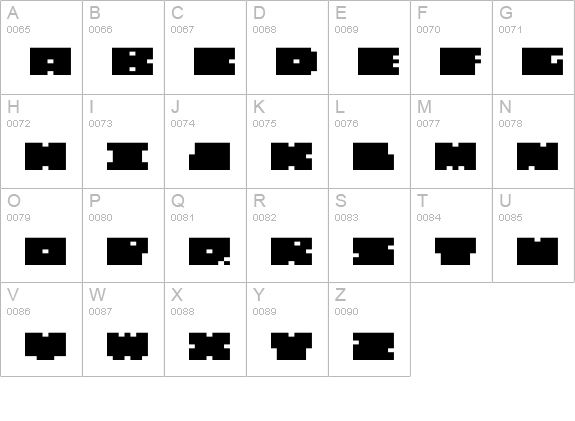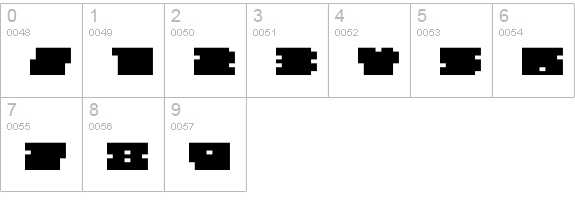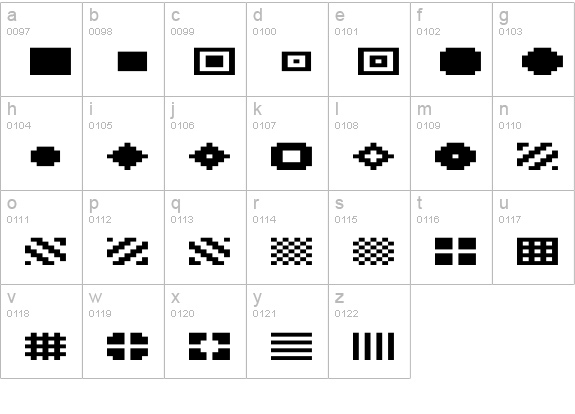
QUBE WIDE is a distinctive, extended-width variant in the QUBE typeface family \xE2\x80\x94 well suited to design and typography projects.
Introducing QUBE WIDE font, a modern and stylish typeface that is perfect for all your design needs. With its clean lines and elongated letterforms, QUBE WIDE font exudes a sense of sophistication and professionalism. This versatile font is suitable for a wide range of design projects, from logos and branding to websites and advertising materials. Its bold and eye-catching appearance ensures that your message will stand out and leave a lasting impression. What makes QUBE WIDE font even more appealing is the fact that it is free! Yes, you heard that right. This incredible font is freely available to download at FontsMarket.com. Now you can add a touch of elegance to your designs without breaking the bank. Whether you are a professional designer or a beginner, QUBE WIDE font is incredibly easy to use. Its well-designed characters are legible and visually appealing, making it a breeze to create stunning and impactful designs. So why wait? Download QUBE WIDE font now and elevate your design projects to new heights. With its sleek and modern aesthetic, this font is sure to make a lasting impression on your audience. Don't miss out on this amazing opportunity to enhance your designs with a high-quality, freely available font. Visit FontsMarket.com today and let your creativity soar with QUBE WIDE font!